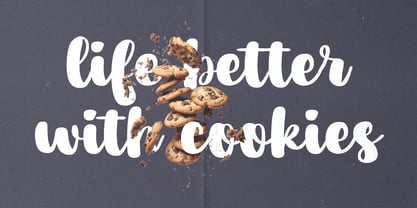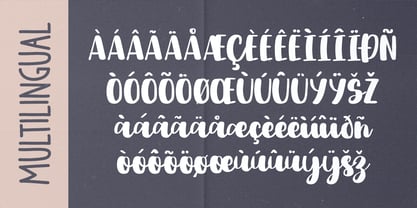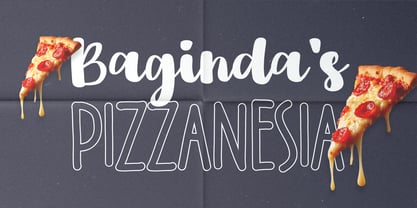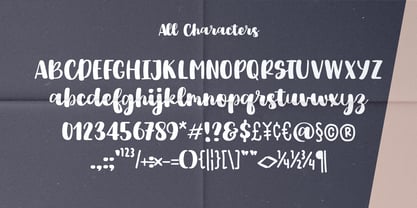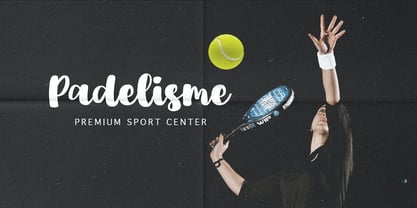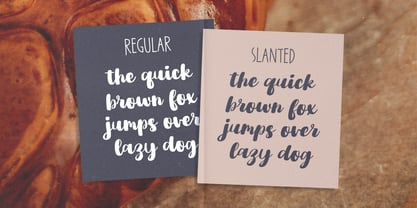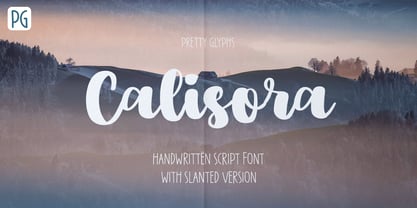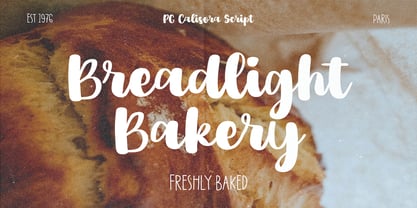
PG Calisora
The PG Calisora Font Family was designed by Ulfa Tiara Putri and published by Pretty Glyphs. PG Calisora contains 2 styles and family package options. More about this family
PG Calisora Script is a stunning handwritten brush script that captures the effortless beauty of modern calligraphy with a natural, flowing touch. Designed to feel both elegant and expressive, this font brings a perfect balance between casual charm and refined style. Crafted with a unique brush texture, every stroke feels authentic and full of personality—making your designs stand out with a handcrafted feel.